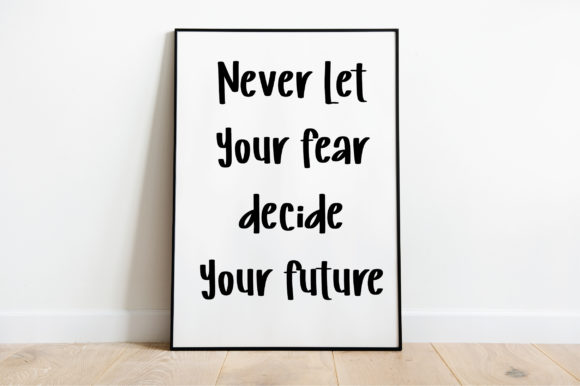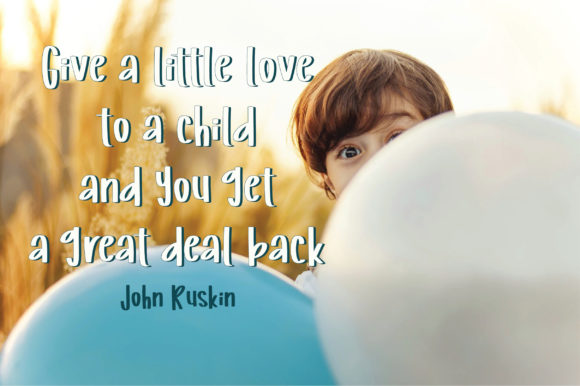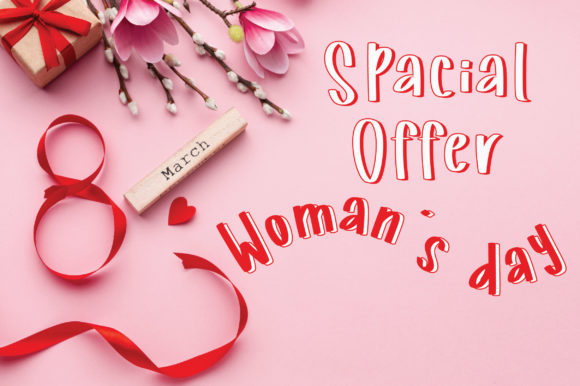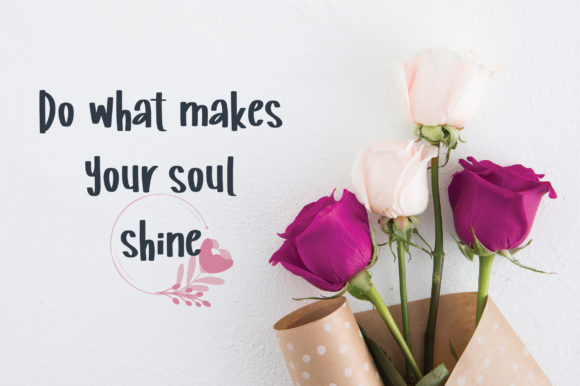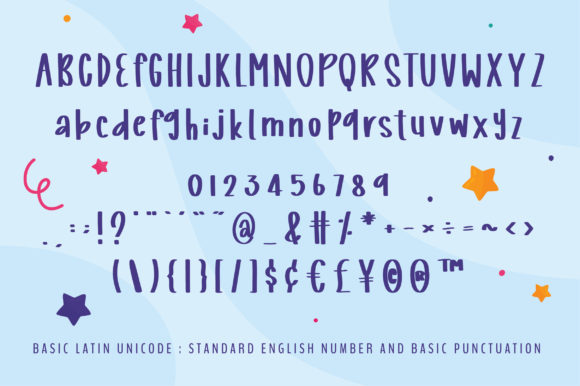
Introducing Childy Font: The Cheerful and Friendly Handwritten Font for Your Creative Projects
Are you looking for a font that can add a touch of happiness and friendliness to your designs? Look no further than Childy Font! This delightful handwritten font is perfect for a wide range of creative projects, from illustrations and posters to logos, book covers, and more. With Childy Font, you can give your project a playful and approachable personality that will captivate your audience.
What Makes Childy Font So Special?
Childy Font is a unique and charming handwritten font that is designed to bring a smile to your face. Its cheerful and friendly appearance makes it ideal for projects that require a playful and approachable tone. The font features rounded edges, soft curves, and a bouncy rhythm that gives it a lively and energetic feel. Whether you’re designing for children or adults, Childy Font is sure to add a touch of whimsy and delight to your project.
Uses for Childy Font
Childy Font is a versatile font that can be used for a wide range of creative projects, including:
• Illustrations: Add a playful touch to your illustrations with Childy Font. Use it to create fun and engaging characters, signs, and text elements that will bring your artwork to life.
• Posters: Create eye-catching posters with Childy Font that will grab the attention of your audience. Use it to promote events, products, or services in a fun and playful way.
• Logos: Give your brand a friendly and approachable personality with Childy Font. Use it to create a logo that is both memorable and engaging.
• Book Covers: Add a touch of whimsy to your book covers with Childy Font. Use it to create a title page or cover design that will appeal to readers of all ages.
• Crafting and DIY Projects: Use Childy Font to add a personal touch to your crafting and DIY projects. Create signs, labels, and other text elements that will make your project stand out.
Why Choose Childy Font?
There are many reasons why Childy Font is the perfect choice for your creative projects. Here are just a few:
• Unique and Charming: Childy Font is a one-of-a-kind font that will add a touch of personality to your project.
• Easy to Read: Despite its playful appearance, Childy Font is easy to read and understand, making it perfect for body text and headlines.
• Versatile: Childy Font can be used for a wide range of creative projects, from illustrations and posters to logos and book covers.
• Fun and Engaging: Childy Font is designed to bring a smile to your face. Use it to create projects that are fun and engaging.
• Experiment with Different Sizes: Childy Font looks great in a variety of sizes, from small captions to large headlines.
• Play with Colors: Childy Font comes in a range of colors, from bright and bold to soft and pastel.
• Mix and Match: Combine Childy Font with other fonts and design elements to create a unique and eye-catching design.
Childy Font is a cheerful and friendly handwritten font that is perfect for adding a touch of happiness and personality to your creative projects. With its unique and charming appearance, Childy Font is sure to captivate your audience and bring a smile to their face. Whether you’re a designer, crafter, or DIY enthusiast, Childy Font is the perfect choice for your next project. So why wait? Download Childy Font today and start creating projects that are fun, engaging, and full of personality!